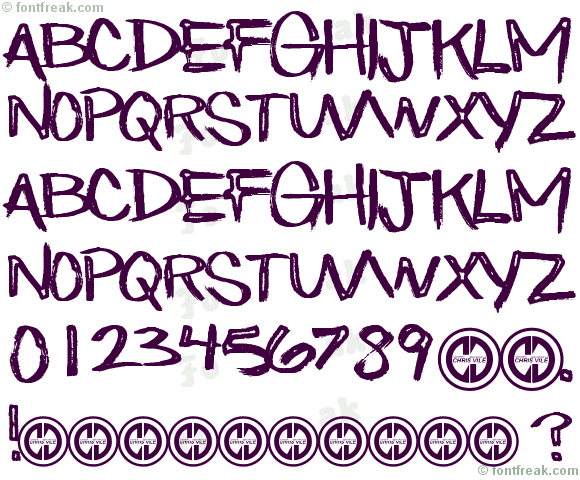
Eatn Cake
The Eatn Cake font by Chris Vile is a distinctive display typeface that captures attention with its playful and inviting design. This font features a unique handwritten style, characterized by bold, brush-like strokes that exude a casual and friendly vibe. The irregularity in the letters adds a touch of authenticity, making it feel personal and approachable. The stroke weight varies throughout, providing a dynamic contrast that enhances its visual appeal, while the spacing is well-balanced, ensuring legibility without compromising on style.
Ideal for a variety of creative projects, the Eatn Cake font shines in contexts such as wedding invitations, where its whimsical nature can evoke joy and celebration. It's also a great choice for restaurant menus, adding a touch of charm to culinary offerings. Additionally, this font can elevate dessert packaging or promotional materials, perfectly aligning with brands in the bakery industry. Graphic designers and content creators will find it especially useful for social media graphics, where eye-catching typography is essential for engagement.
What sets the Eatn Cake font apart is its ability to blend fun and professionalism, making it versatile for various applications. Its inviting nature encourages creativity and adds a personal touch to any project, making it a standout choice for those seeking to leave a memorable impression. For those interested in incorporating this delightful typeface into their work, an Eatn Cake font free download is readily available, allowing users to explore its full potential.